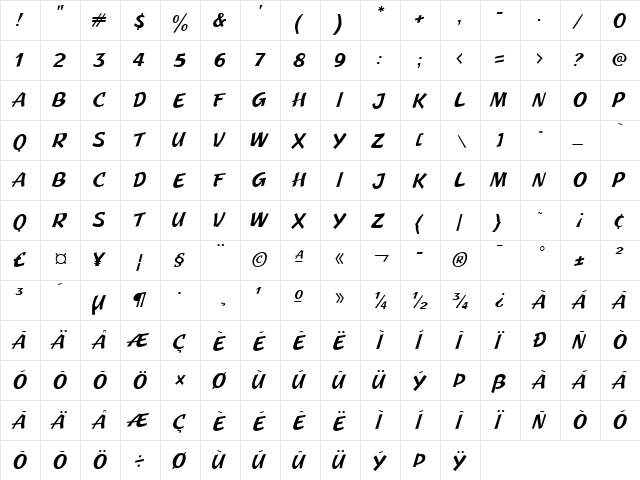
JMH Pulp Paperback Regular
Design Context for JMH Pulp Paperback Typeface
JMH Pulp Paperback is a composed and adaptable typeface that performs quietly and consistently across a wide range of design contexts.